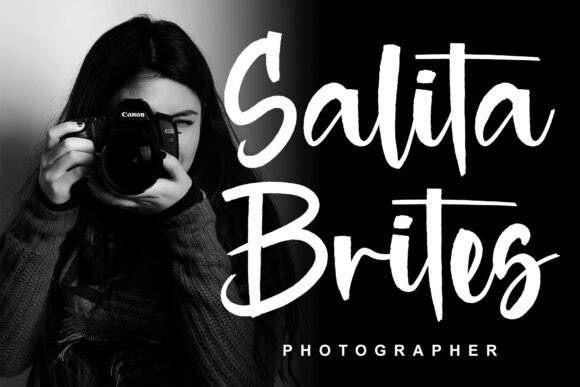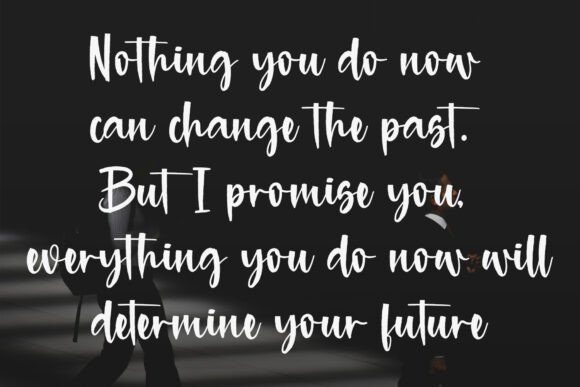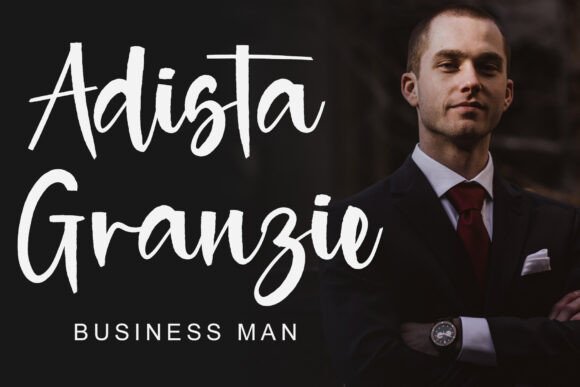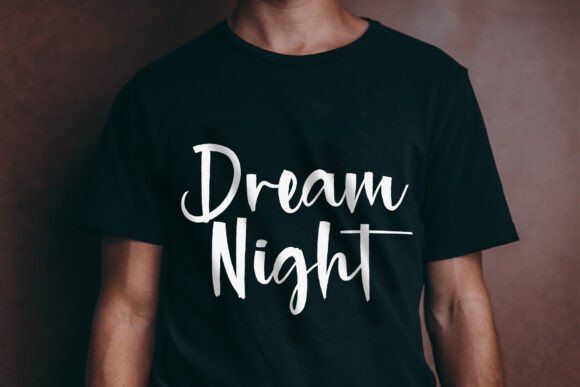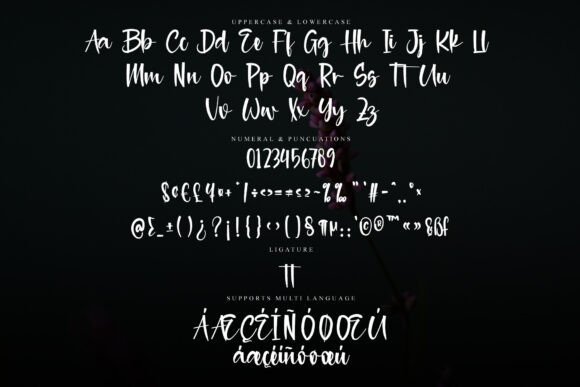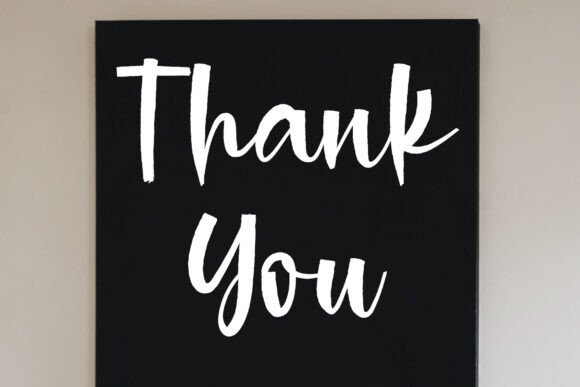
Unlock the Magic of Your Creativity with Eligated Dreams Font
Have you ever stared at a blank canvas, wondering how to bring your creative vision to life? The spark of inspiration is there, but the words just won’t flow. That’s when you need a little magic to guide your way. Enter Eligated Dreams Font, a beautifully crafted handwritten font designed to add an air of elegance to your designs.
Whether you’re a seasoned designer or a DIY enthusiast, Eligated Dreams Font is the perfect companion for your creative journey. This enchanting font is not just a tool, but a partner that helps you turn your ideas into stunning works of art. With Eligated Dreams Font, you’ll be able to elevate your social media posts, add a touch of sophistication to your wedding invitations, or create unique calligraphy scripts for your DIY projects.
Key Features of Eligated Dreams Font
- Font Family: Eligated Dreams Font is a unique, hand-crafted font family with 6 styles, including Light, Regular, Bold, Italic, Bold Italic, and Outline.
- Character Set: The font includes a wide range of characters, including Latin, Cyrillic, and Greek alphabets, as well as punctuation marks and symbols.
- Unique Characteristics: Eligated Dreams Font features a distinctive, dreamlike quality, with intricate details and subtle texture, making it perfect for creative and artistic projects.
Review of Eligated Dreams Font
Overall, I’m quite impressed with Eligated Dreams Font. It’s a beautiful, elegant script font that works well for any project that requires a touch of sophistication and whimsy. ✨ The flowing connections between letters and the subtle flair on the terminals create a sense of fluidity and movement that’s perfect for branding and editorial work.
- The font’s versatility is one of its strongest points. It works equally well for headings and body text, and its ability to adapt to various line heights and font sizes is impressive.
- The font’s intricate details and flourishes add a level of sophistication that’s hard to find in other script fonts.
- The font’s legibility is excellent, even at smaller sizes, making it a great choice for digital applications.
However, there are some limitations to consider: ⚠️ The font’s complexity may make it difficult to use in certain situations, such as in very narrow columns or at extremely small sizes. Additionally, the font’s elegance may come across as overly ornate or distracting in certain contexts.
Overall, I think Eligated Dreams Font is a great addition to any designer’s toolkit. While it may not be the best choice for every project, it’s a versatile and elegant font that’s sure to impress in the right situations.
Tips for Getting the Most Out of Eligated Dreams Font
Experiment with different font sizes, colors, and styles to create a unique look.
Use Eligated Dreams Font for titles, headings, or emphasis to draw attention to important information.
Combine Eligated Dreams Font with other fonts to create a visually appealing contrast.
Eligated Dreams Font is perfect for:
Designing creative and artistic projects.
Creating unique and eye-catching titles.
Adding a touch of elegance and sophistication to your designs.
Alternatives to Eligated Dreams Font
Oswald Font is a sans-serif font that is suitable for titles, headings, and short paragraphs. It has a geometric feel and is highly legible even at small font sizes. Oswald is more geometric and modern compared to Eligated Dreams Font, which has a more vintage feel.
Playfair Display Font is an elegant and luxurious serif font that is ideal for titles, headings, and body text in formal documents. It has a high contrast between thick and thin lines, which gives it a sophisticated look. Playfair Display Font is more elegant and sophisticated compared to Eligated Dreams Font, which has a more whimsical feel.